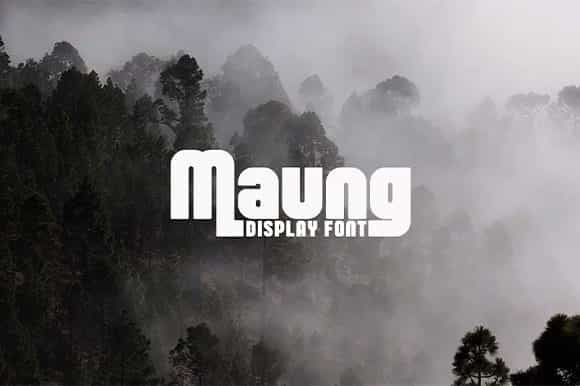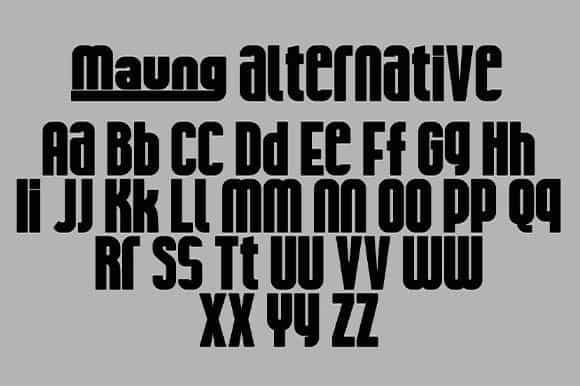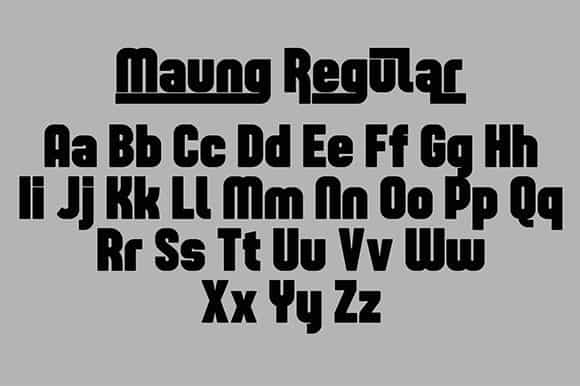
Maung Display Font is an artistic and edgy display sans-serif font to break every rule and show your edgy aesthetic sides in the visual project. It is a sans font but another style that is quite simple yet modern. Maung is designed and shared by Nico Muslib.